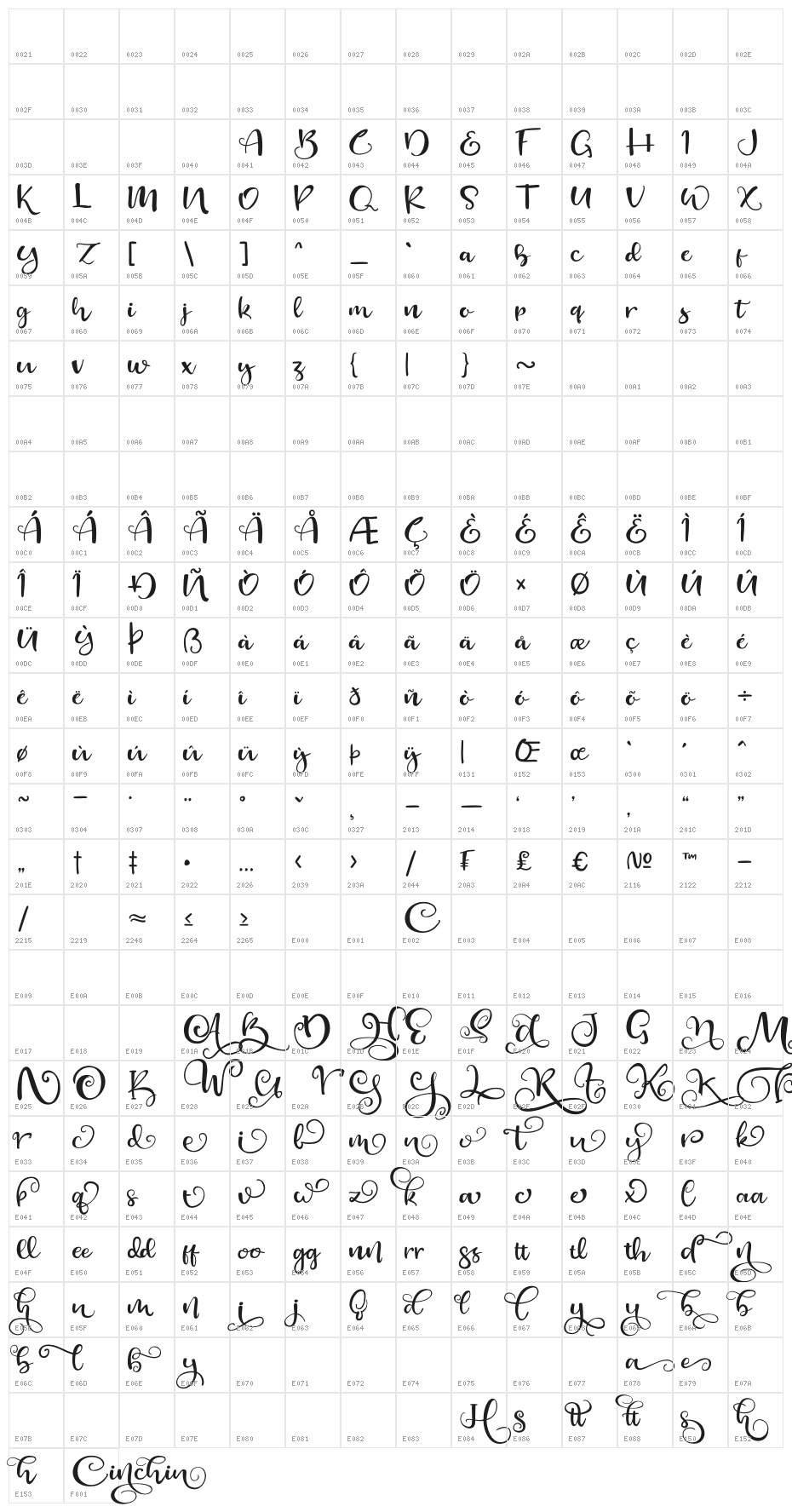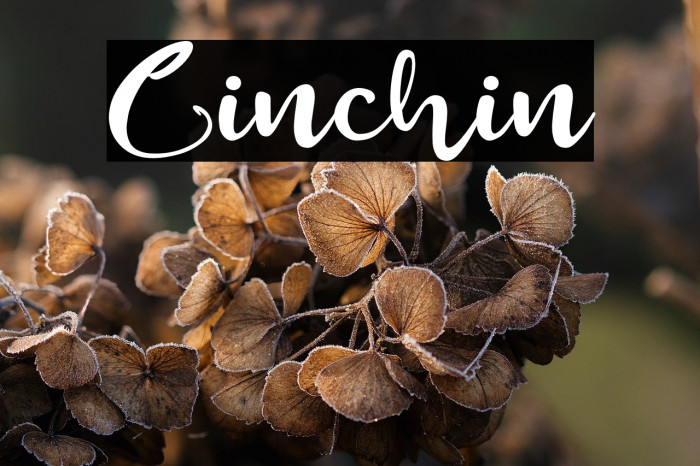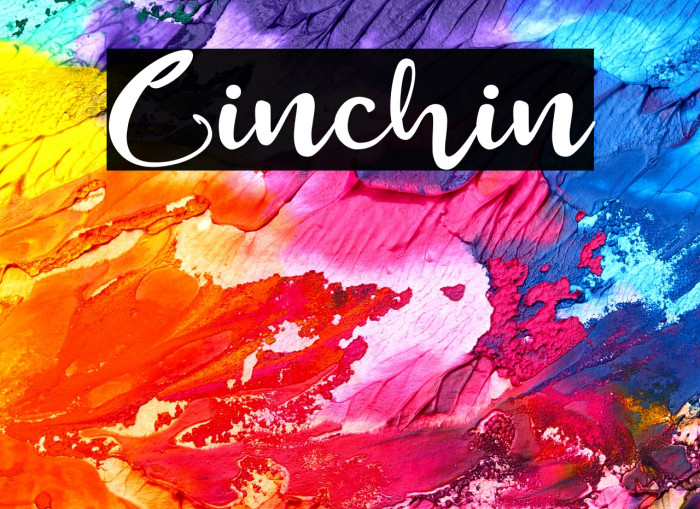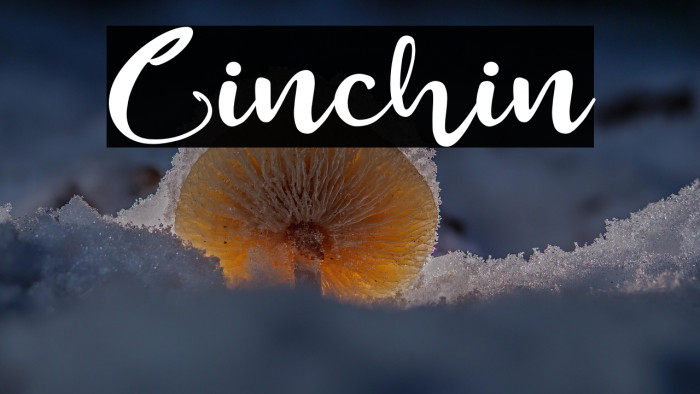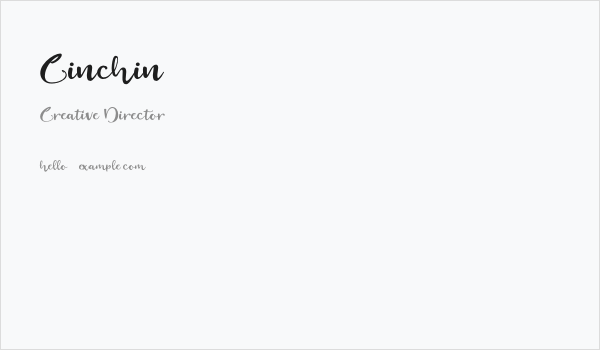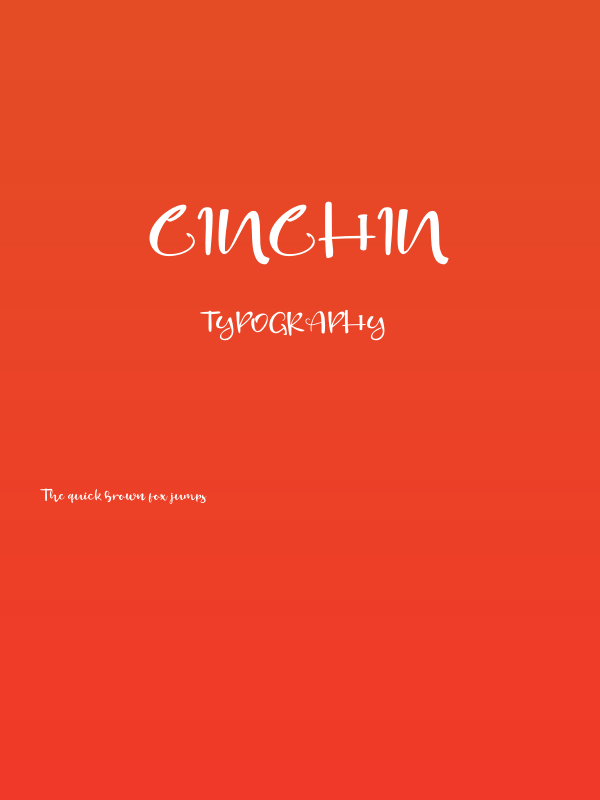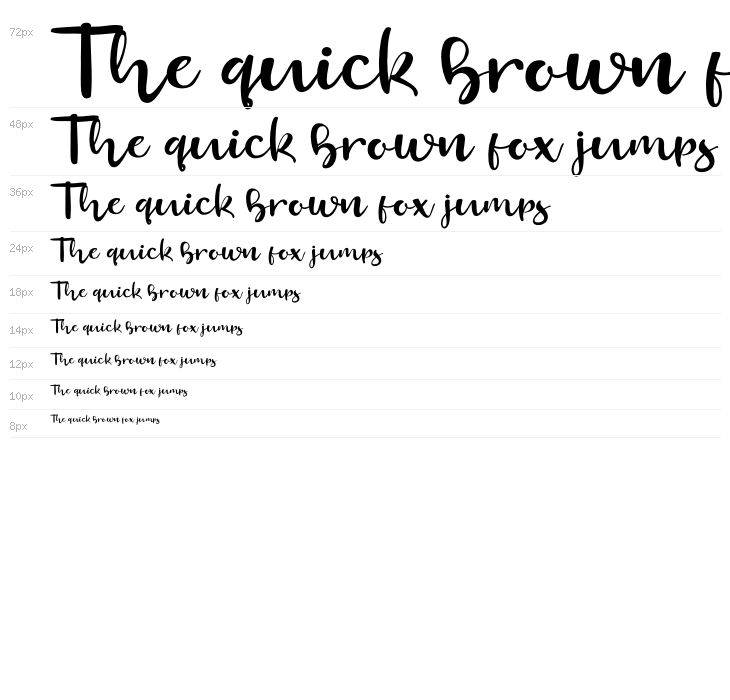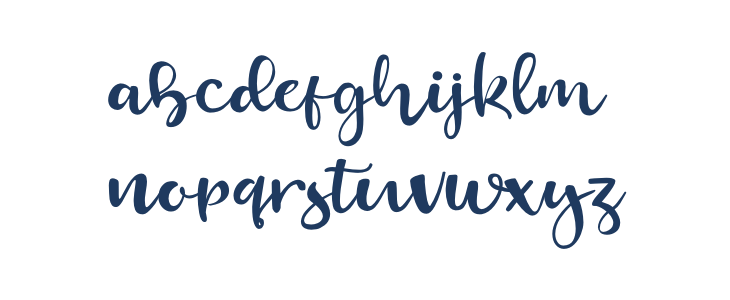
Cinchin Font
Cinchin Description
This font features a playful and elegant script style, characterized by its flowing, cursive letters. The uppercase letters exhibit a whimsical flair with loops and swashes, while the lowercase letters maintain a consistent, smooth flow that enhances readability. The strokes are bold and confident, providing a strong visual impact. The overall design is modern yet retains a touch of classic calligraphy, making it versatile for various design needs. The font's unique personality is perfect for projects that require a touch of elegance and creativity.
| Proposed Projects | Ideal for wedding invitations, branding, greeting cards, and social media graphics. |